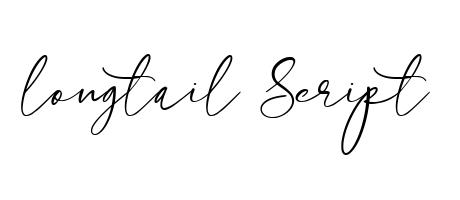
longtail Script
Longtail Script: A graceful cascade of letters, each stroke a delicate dance of ink. Its elegant curves and flowing script evoke a sense of effortless sophistication, perfect for wedding invitations, romantic novels, or anything demanding a touch of timeless charm. The extended tails add a playful, whimsical feel, hinting at secrets whispered on the wind.